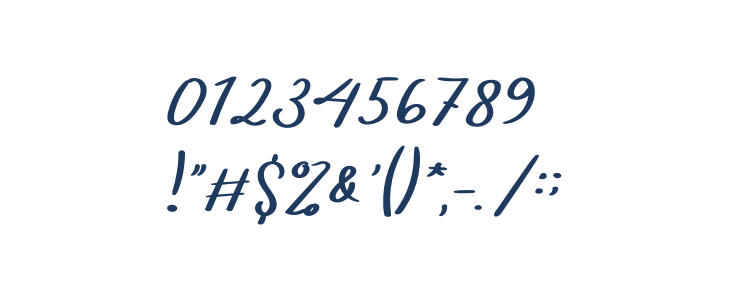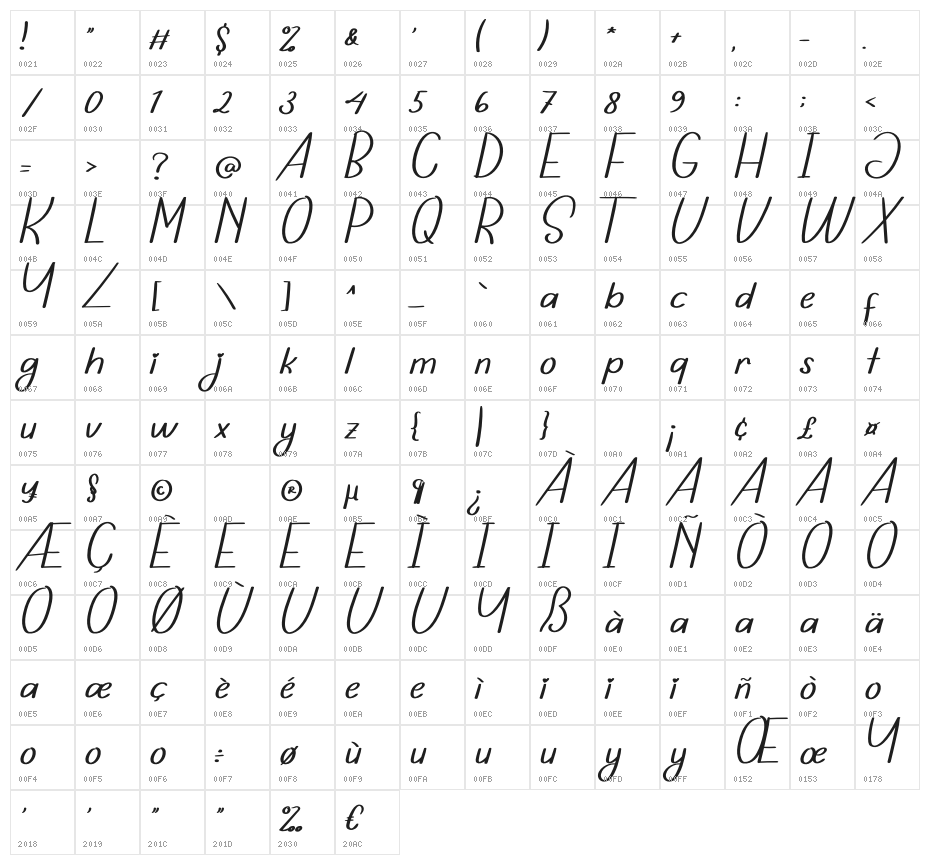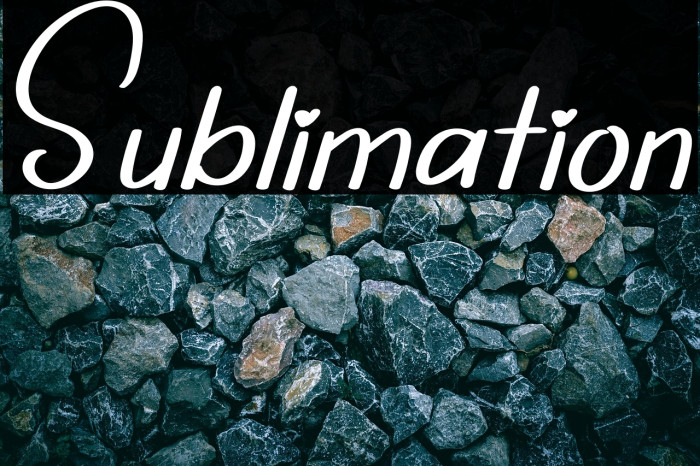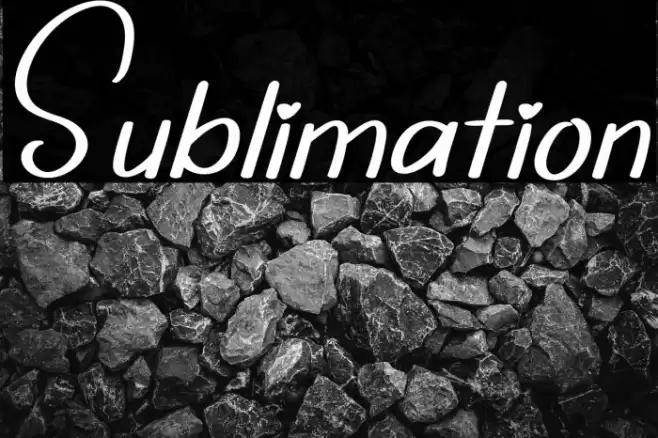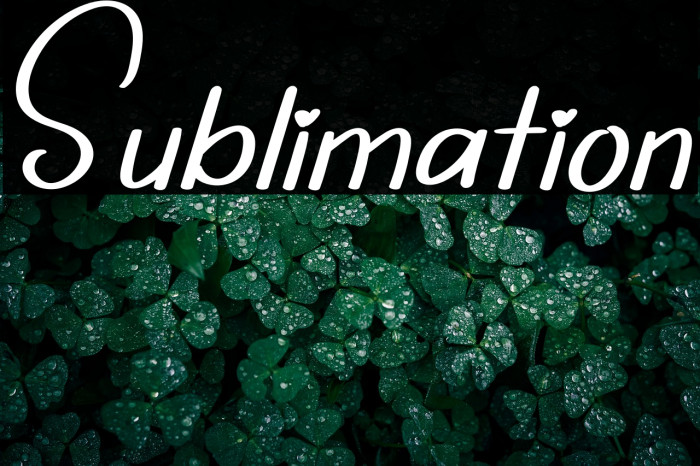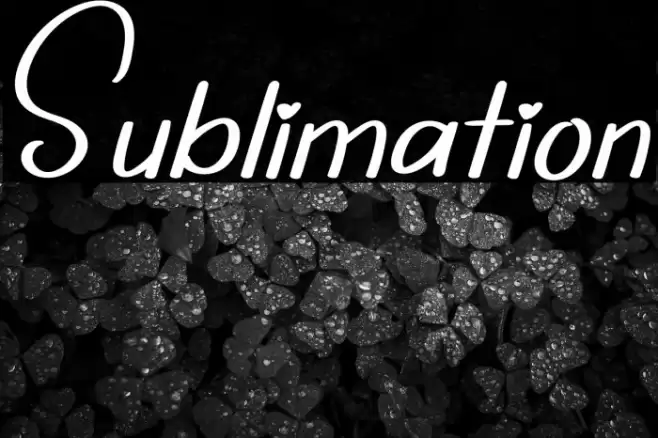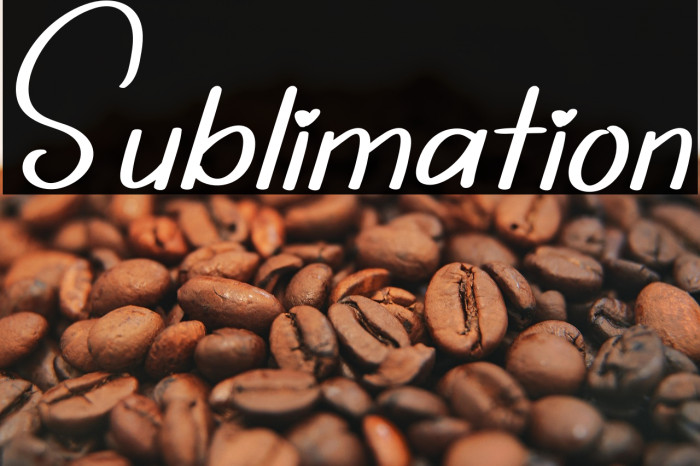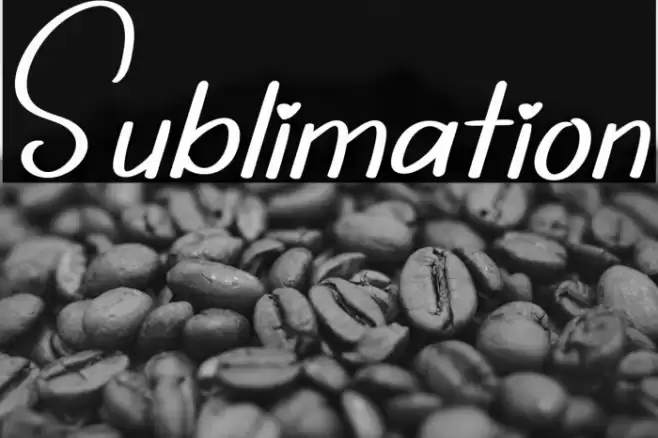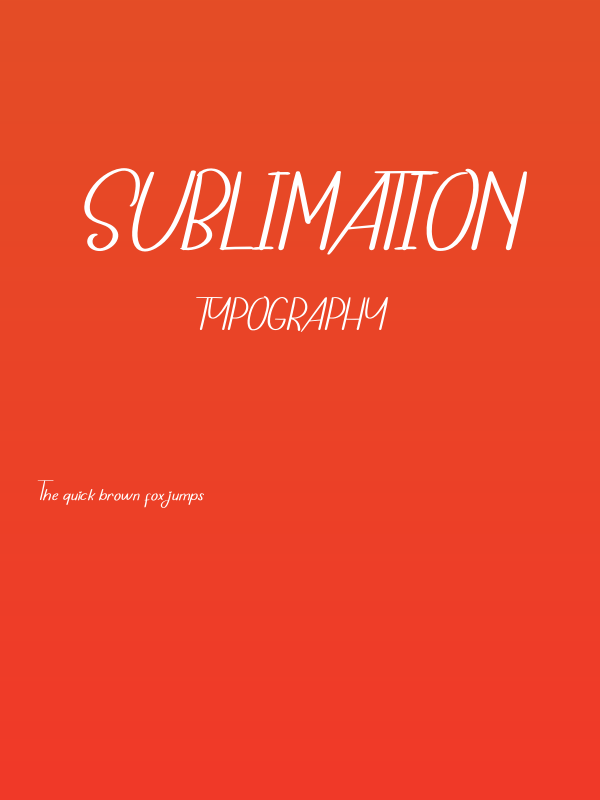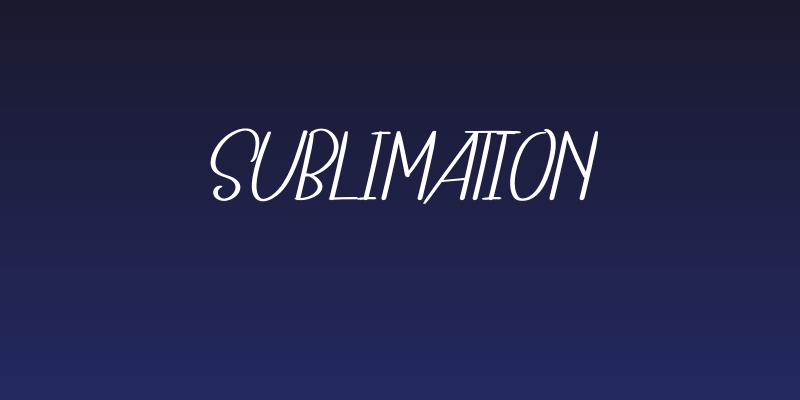
Sublimation Font
Sublimation Description
This font features a dynamic and flowing script style with a modern twist. The uppercase letters are tall and slender, with a slight slant that adds a sense of movement and elegance. The lowercase letters are more rounded and connected, creating a harmonious balance between the two cases. The numerals are consistent with the overall style, maintaining the fluidity and grace of the script. Special characters are thoughtfully designed to match the aesthetic, ensuring a cohesive look across all text. This font is perfect for projects that require a touch of sophistication and creativity.
| Use Case | Logos, Invitations, Creative projects |
| Proposed Projects | Ideal for wedding invitations, elegant branding, personal stationery, and creative design projects. |